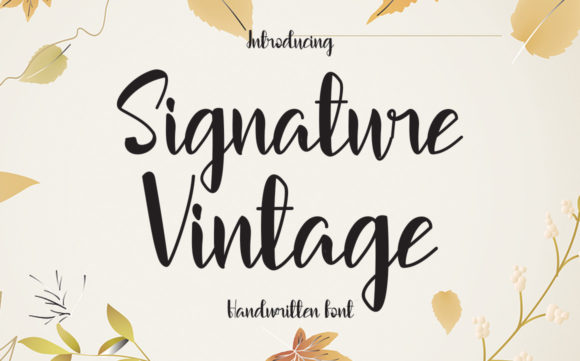
In a world saturated with digital monotony, your designs deserve a touch of timeless elegance and boundless creativity. Introducing the Signature Vintage Font, an exquisite script font family that captures the essence of handwritten artistry, rekindling the charm of bygone eras.
Born from the creative mind of abcd graffiti, Signature Vintage Font breathes life into your words, transforming them into captivating masterpieces. Its delicate strokes, reminiscent of a calligrapher's quill, dance across the page with graceful fluidity, adding a touch of sophistication and refinement to your designs.
Step into a realm of endless possibilities, where the Signature Vintage Font becomes your trusted companion in visual storytelling. Create eye-catching logos that command attention, branding that exudes timeless appeal, and quotes that resonate with profound emotion. Every letter, meticulously crafted with a unique and beautiful touch, brings your designs to life, infusing them with a captivating allure that speaks to the heart.
With Signature Vintage Font, your designs transcend mere aesthetics; they become evocative expressions of your brand's identity, leaving an indelible mark on the minds of your audience. Whether you're a seasoned designer seeking to elevate your craft or an aspiring artist yearning to make a statement, this font family is your gateway to creative liberation.
Unleash the boundless potential of Signature Vintage Font and embark on a journey of artistic discovery. Let your imagination soar as you create designs that captivate, inspire, and leave a lasting impression. Embrace the timeless beauty of handwritten artistry and watch your creative vision flourish.